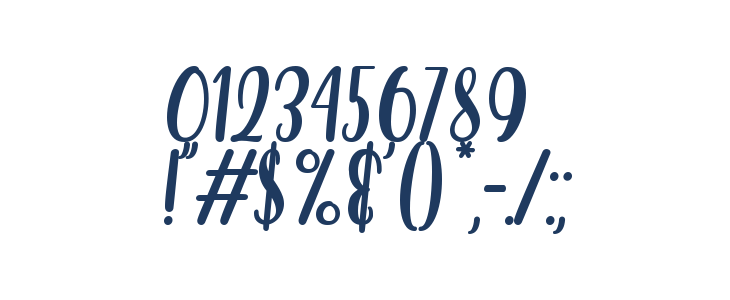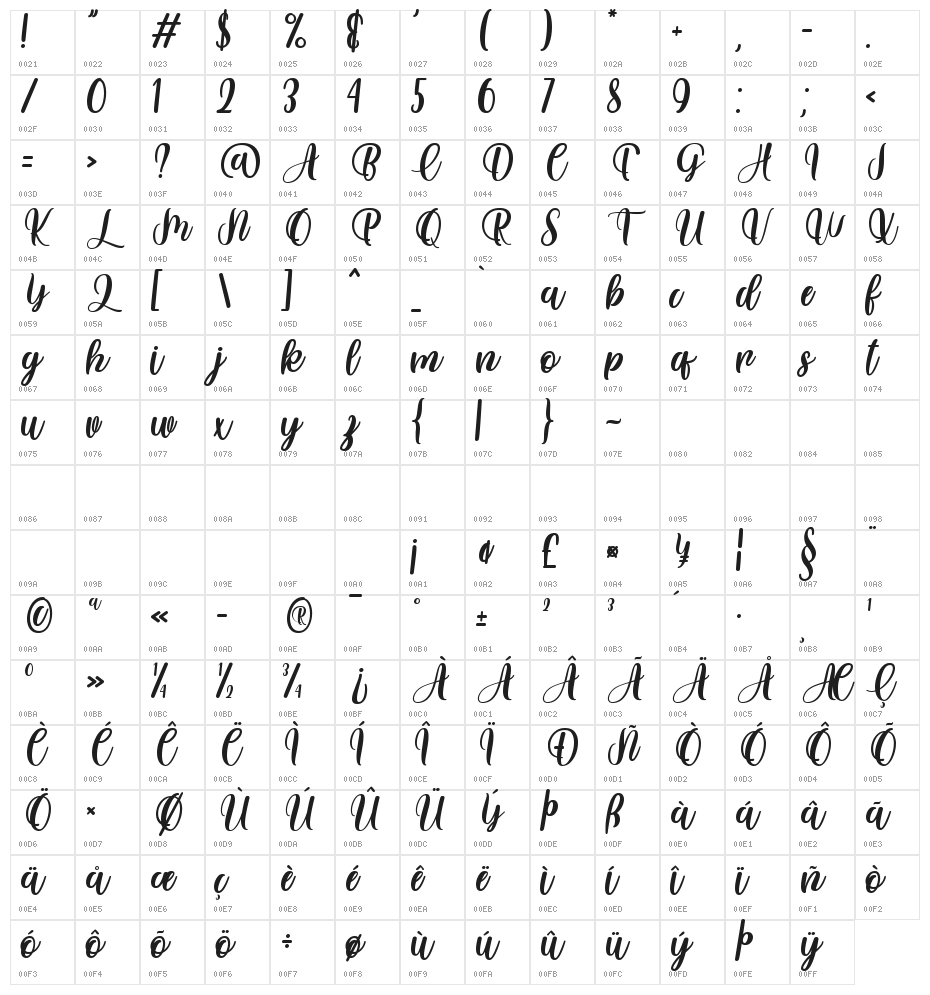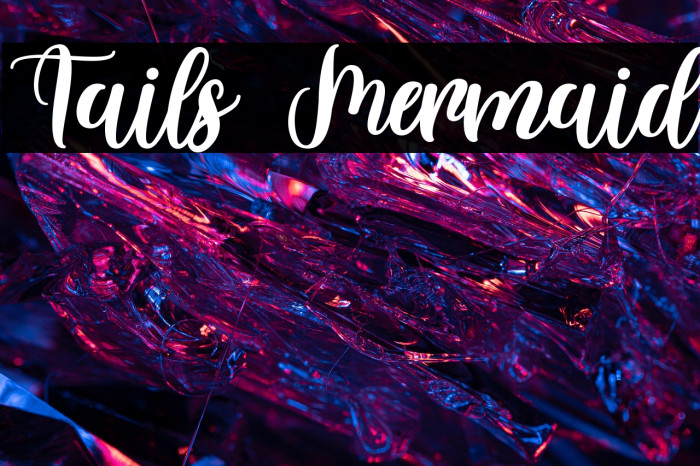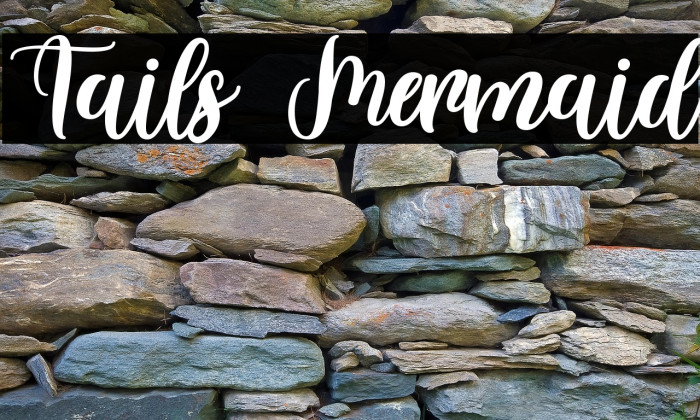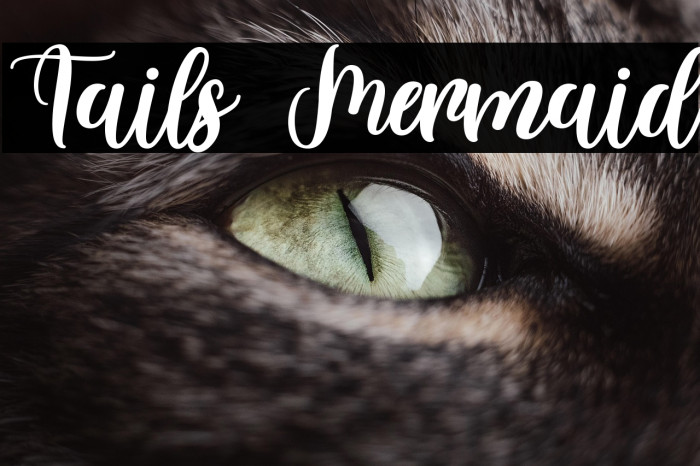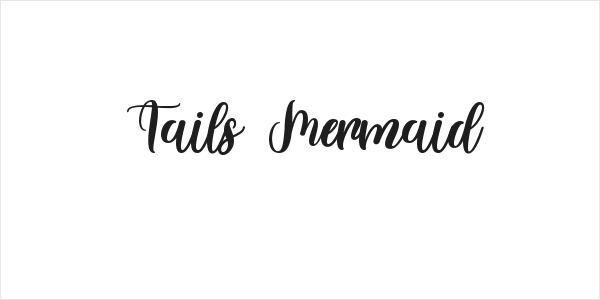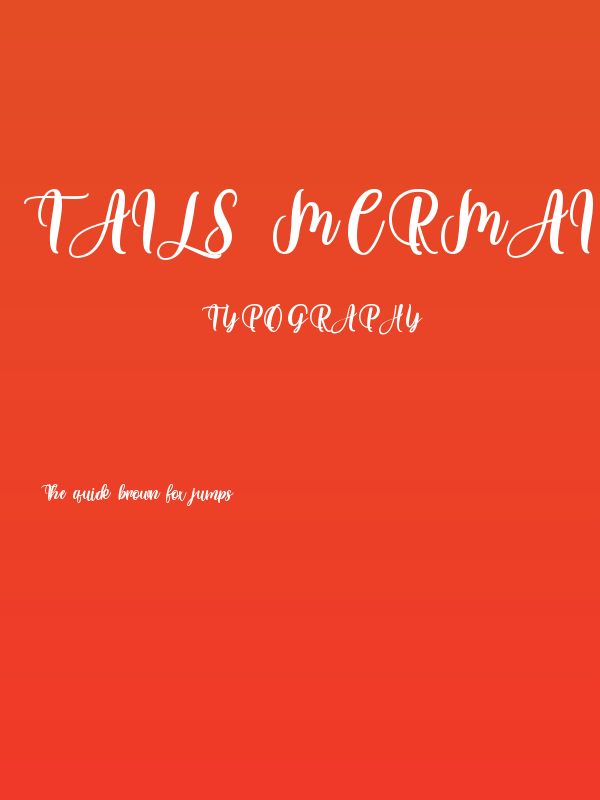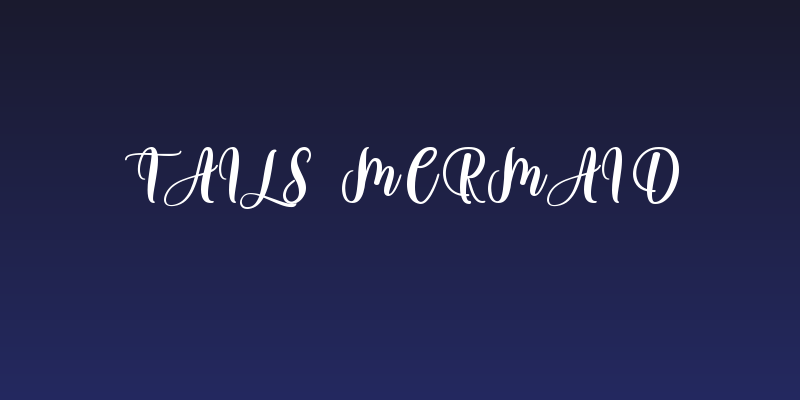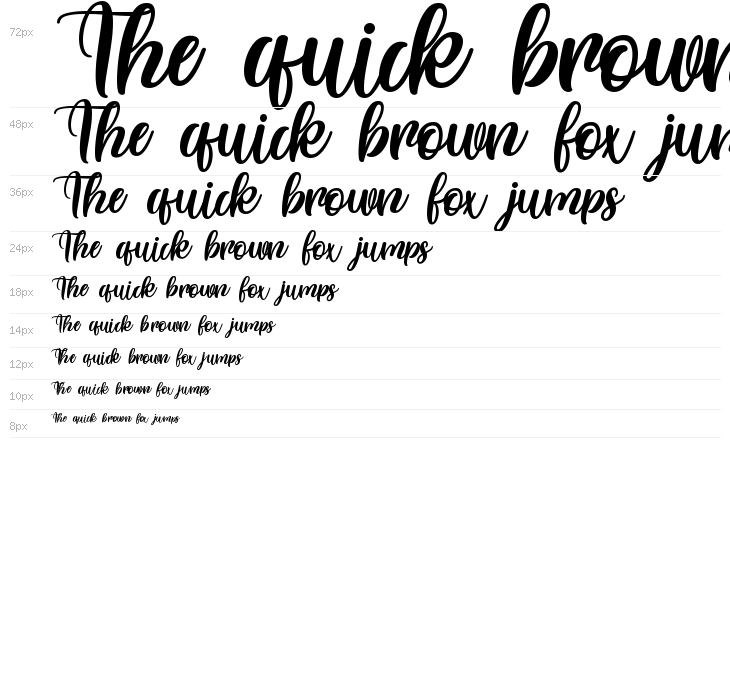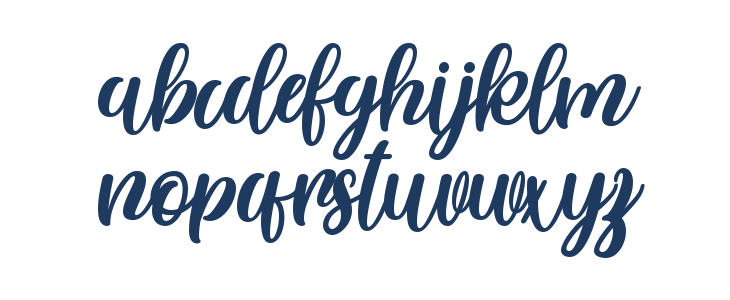
Tails Mermaid Font
Tails Mermaid Description
This font is a lively and elegant script with a flowing, cursive style that exudes a sense of sophistication and charm. The uppercase letters are characterized by their sweeping curves and loops, creating a sense of movement and grace. The lowercase letters maintain a consistent flow, with rounded forms and smooth connections between characters. The numerals are bold and slightly elongated, complementing the overall aesthetic. Special characters are designed with the same fluidity, adding to the cohesive look of the font. This script is perfect for projects that require a touch of elegance and personality.
Overall StyleElegant, Decorative
Use CaseLogos, Invitations, Decorative text
Proposed ProjectsIdeal for wedding invitations, greeting cards, branding, and elegant packaging.